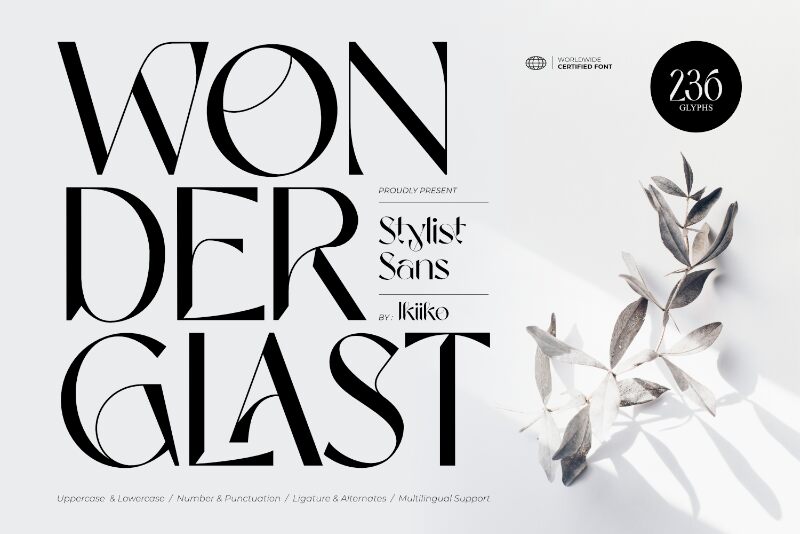
Wonderglast font designed by Ikiiko Type is a fancy font with a spectacular and elegant style. Its visual beauty comes from geometric influences which give it a touching blend of contemporary and sophisticated feels. This font is ready to become a part of your next ambitious design project as it’s a great fit when luxurious vibes need to be present.
Wonderglast can be used in stylish posters and editorials, eye-catching modern websites, and fashionable branding projects. It’s suitable for developing elegant apps, especially those related to clothing, accessories, and cosmetics, while fonts are always part of the application presentation. Use it to make a logotype of a retail store with high-end products or showcase a music artist who sings in front of jam-packed stages.